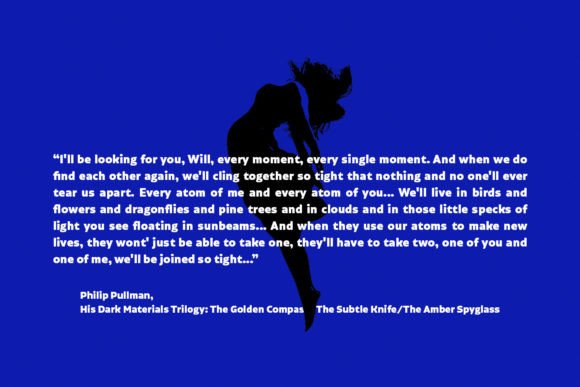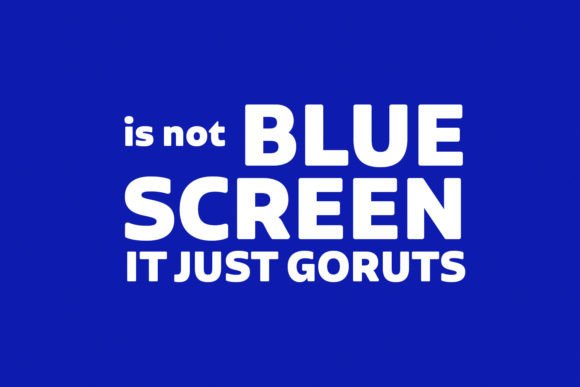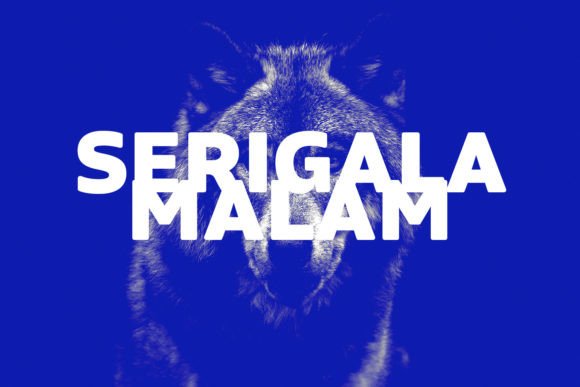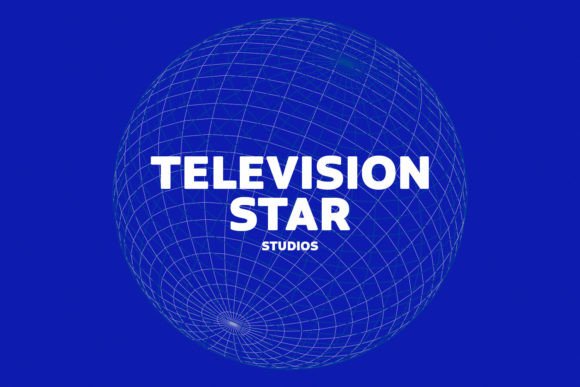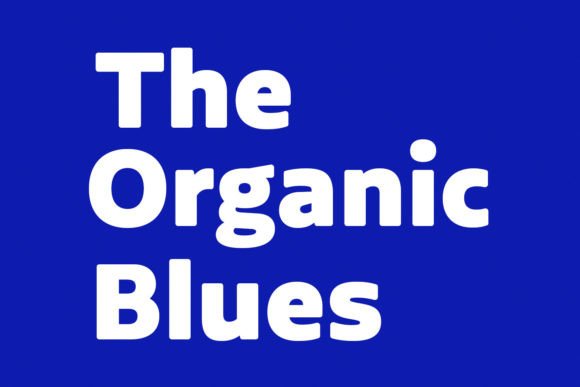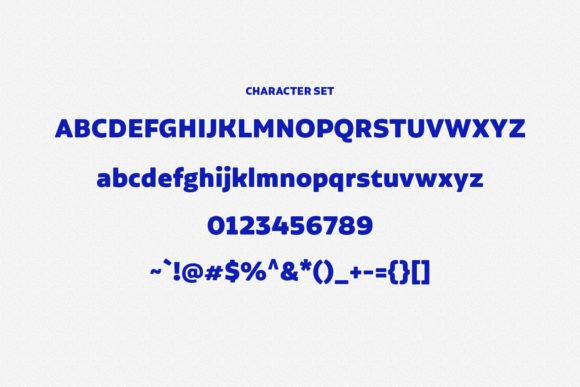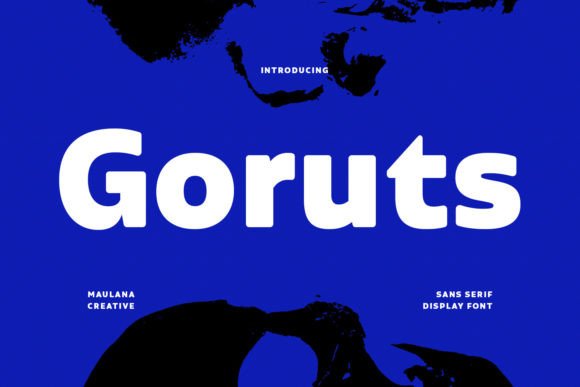
Goruts Font: The Ultimate Choice for Bold and Modern Designs
In the world of typography, fonts play a crucial role in making or breaking a design. A well-chosen font can elevate a design from ordinary to extraordinary, while a poorly chosen one can have the opposite effect. For designers and crafters looking for a bold and modern display font that demands attention, Goruts Font is an excellent choice. In this article, we’ll explore the features and benefits of Goruts Font and why it’s perfect for headlines, titles, and branding projects.
The Power of Bold and Heavy Letterforms
Goruts Font boasts strong and heavy letterforms that make it stand out from the crowd. Its bold and bulky appearance is designed to grab attention and make a lasting impression. Whether you’re designing a poster, brochure, or website, Goruts Font is sure to turn heads. The font’s bold letterforms are perfect for creating eye-catching headlines and titles that draw the reader in and refuse to let go.
One of the key benefits of Goruts Font is its versatility. This font is suitable for a wide range of design applications, from print to digital media. Whether you’re designing a business card, billboard, or social media graphic, Goruts Font is an excellent choice. Its bold and modern appearance makes it perfect for designs that require a strong and impactful presence.
Perfect for Headlines and Titles
Goruts Font is specifically designed for headlines and titles, making it an ideal choice for designers looking to create attention-grabbing text. The font’s bold and heavy letterforms ensure that your headlines and titles stand out from the rest of the content, drawing the reader’s attention and emphasizing the importance of the text. Whether you’re designing a news article, blog post, or website, Goruts Font is perfect for creating headlines and titles that demand attention.
Branding and Identity
In addition to its use in headlines and titles, Goruts Font is also perfect for branding and identity projects. The font’s bold and modern appearance makes it an excellent choice for creating logos, taglines, and other branding elements. Its versatility ensures that it can be used across various mediums, from business cards to billboards, ensuring consistency and cohesion in your brand’s visual identity.
Why Choose Goruts Font?
So, why choose Goruts Font over other fonts? Here are a few reasons:
- Unique and attention-grabbing: Goruts Font’s bold and heavy letterforms make it stand out from the crowd, ensuring that your designs grab attention and make a lasting impression.
- Versatile: Goruts Font is suitable for a wide range of design applications, from print to digital media.
- Easy to read: Despite its bold appearance, Goruts Font is easy to read, making it perfect for headlines and titles.
- High-quality: Goruts Font is a high-quality font designed to deliver exceptional results in your designs.
Tips for Using Goruts Font
Here are a few tips for using Goruts Font effectively in your designs:
- Use it sparingly: Goruts Font is bold and attention-grabbing, so use it sparingly to avoid overwhelming the reader.
- Pair it with a complementary font: Pair Goruts Font with a complementary font to create visual interest and add depth to your design.
- Experiment with different sizes and colors: Experiment with different sizes and colors to find the perfect combination for your design.
In conclusion, Goruts Font is a bold and modern display font that demands attention. Its strong and heavy letterforms make it perfect for headlines, titles, and branding projects. Its versatility ensures that it can be used across various mediums, from print to digital media. Whether you’re a designer or crafter, Goruts Font is an excellent choice for adding a touch of boldness and modernity to your designs. So why wait? Download Goruts Font today and take your designs to the next level!